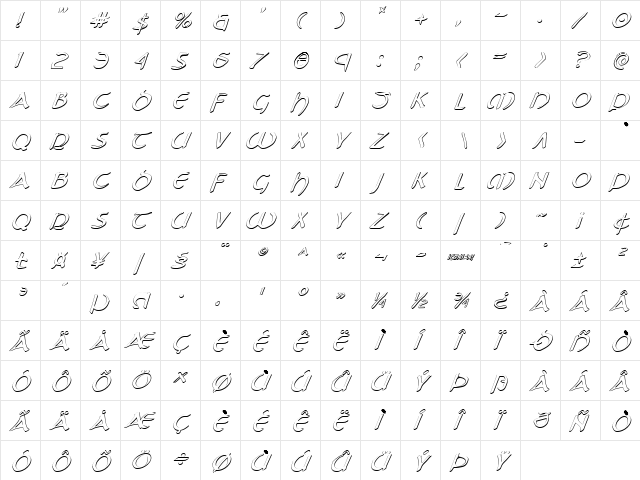
Tristram Shadow Italic Italic
Design Context for Tristram Shadow Italic Typeface
Tristram Shadow Italic brings ornamental detail and strong personality to headlines and identities, where visual impact matters more than quiet functionality. The slanted form adds forward momentum and visual energy.
Font Pairing: Pair with a clean neutral sans-serif for body copy to let Tristram Shadow Italic's character lead without overwhelming the composition.
Pro Tip: Use Tristram Shadow Italic exclusively at display sizes — it was designed to be seen, not read at length. Let a neutral companion handle body copy.